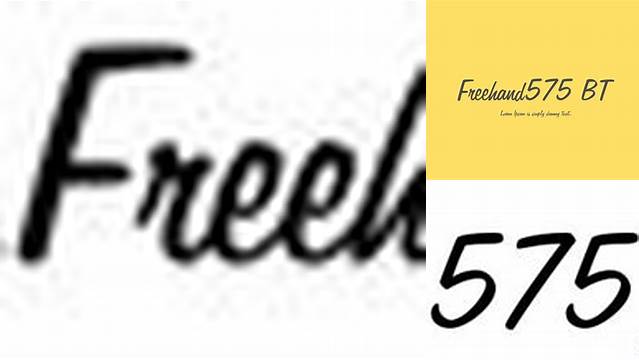
Hey everyone! Are you on the hunt for the Freehand 575 BT font? You've landed in the right spot! This article is your go-to guide for everything related to this classic typeface, including how to snag a free download. We'll dive into its history, its uses, and where you can find it. So, buckle up, and let's get started!
H2: Understanding the Freehand 575 BT Font
Okay, first things first: What exactly is the Freehand 575 BT font? Simply put, it's a distinctive typeface that's been around for quite a while. It's known for its unique handwritten or calligraphic style, making it ideal for a variety of design projects. Imagine the elegance of a well-crafted signature, and you're on the right track. This font isn't just about letters; it's about creating a certain feel – a touch of personality and flair that sets your work apart. Its flowing strokes and slightly irregular letterforms give a sense of authenticity and a human touch, something that’s often missing in more rigid, digitally-perfected fonts. The Freehand 575 BT font is a great choice if you're looking to evoke a sense of creativity and artistry. It's a great option for headings, titles, and even shorter body text, depending on the overall design aesthetic. This font works well in a range of scenarios, from creating stylish invitations and greeting cards to crafting eye-catching logos and branding materials. Designers often turn to this font when they want to add a touch of personality or a handcrafted feel to their work. Its versatility means it can be adapted for both digital and print projects. The font is also frequently used in artwork to create a more personal feel. It's not just about what the letters say, it's about the way they say it, the unique characteristics of each character that contributes to the font's overall aesthetic impact. Think about how different fonts can change the mood of a design. A bold, sans-serif font might convey strength and modernity, while a delicate script font might suggest elegance and romance. Freehand 575 BT falls into the latter category, offering a sense of artistry and a unique appeal that's hard to replicate with other fonts. The history behind the font might also influence your choice. Knowing that it's been around for a while and still being widely used suggests its durability and continued relevance in design. Knowing about the origins and the designers behind the font can give you a deeper appreciation of its intricacies.
H2: The Best Uses for Freehand 575 BT Font
Alright, let's talk about where you can actually use the Freehand 575 BT font to make your projects pop. The beauty of this font lies in its versatility. Think of it as a secret weapon in your design arsenal. It's fantastic for adding a personal touch to invitations, wedding stationery, and greeting cards. Want to make your invitations seem extra special? This font is your go-to. Also, if you're working on branding, it's a great choice for logos, especially if you want to convey a sense of creativity, art, or a handcrafted feel. Logos designed with the Freehand 575 BT font can stand out from more generic, impersonal designs. Consider it for social media graphics, where you want to create headlines that grab attention. Its distinctive look makes your posts more memorable in a sea of content. Blog headers? Yep, it works great there too. Use it to create a visual identity that's consistent across your website, social media, and printed materials. This level of consistency reinforces your brand's image and makes it easier for your audience to recognize and remember you. Another brilliant use case is in designing merchandise, such as t-shirts, mugs, or posters. It's perfect for adding a unique flair to quotes or short phrases. When deciding where to use the Freehand 575 BT font, the key is to consider the overall message you want to convey. Does the font's style align with your brand's values? Does it help you communicate your message in a way that resonates with your target audience? By using the font thoughtfully, you can enhance your designs and make them more appealing. If you are planning on using the font for longer blocks of text, consider it in smaller sizes or in conjunction with other, more readable fonts. The unique style of Freehand 575 BT is most effective when used sparingly, like a dash of seasoning in a dish. Keep in mind that legibility is key, especially when it comes to print materials or digital platforms. Ultimately, the best way to determine whether this font is right for your project is to experiment with it. Try different sizes, layouts, and combinations to see how it looks and feels.
H3: Freehand 575 BT Font in Invitations and Stationery
When it comes to invitations and stationery, the Freehand 575 BT font is like the elegant guest that always impresses. Imagine crafting wedding invitations with this font; it immediately exudes a sense of sophistication and romance. The handwritten-style letters add a personal touch that generic fonts simply can't replicate. Guests immediately feel as if they are receiving something created especially for them. Also, consider using this font for birthday party invitations, baby showers, or any other special event. The flowing curves and artistic flair of the font enhance the celebratory mood. You can use it for the main text, the names of the hosts, or even for the RSVP information. However, balance is key. Pair the Freehand 575 BT font with a more readable font for the body of your text, especially for the details like the date, time, and location. This combination offers the best of both worlds: a stylish headline and clear readability. The visual hierarchy is crucial. Use a larger size for headlines and smaller sizes for the remaining content. You can also add embellishments to your stationery, like elegant borders or illustrations, to further complement the font's artistic appeal. The overall look and feel of the invitation should align with the event's theme. The Freehand 575 BT font is perfectly suited for creating a vintage vibe or a more modern aesthetic. Consider adding the font to thank you cards, place cards, or even menus. Each piece, when adorned with this elegant font, contributes to the overall experience, making it memorable. It is important to test the font out beforehand and experiment with its different styles. Make sure the font looks great on the paper type and with the color scheme you're planning to use. Ultimately, the goal is to create invitations and stationery that not only look beautiful but also clearly convey important information.
H3: Creating Unique Logos with Freehand 575 BT Font
If you're looking to create a logo that really stands out, the Freehand 575 BT font can be a game-changer. This font is a fantastic choice, particularly if you want to give your brand a handcrafted or artistic feel. Think of it as a way to inject personality into your logo. The font's unique style can instantly make your brand more memorable. Many businesses, especially those in creative fields, turn to this font to create a strong visual identity. Imagine a logo for a small bakery, a boutique clothing store, or an art studio. The font can help create an image that is both unique and professional. When choosing a font for your logo, consider your brand's overall image and the message you want to convey. If your brand is about creativity, originality, and attention to detail, the Freehand 575 BT font can be a perfect fit. However, it is crucial to ensure that the font is legible, even at a small size. Keep in mind that your logo will appear on various platforms. When used in a logo, the font should be clear and concise. In addition to using the font for the main text, experiment with incorporating it into other elements of your logo design. You might use it to create a tagline, a stylized monogram, or as part of the overall design. Also, consider using the font in conjunction with other design elements, such as custom illustrations or a unique color palette. The aim is to create a logo that's instantly recognizable and effectively represents your brand. A well-designed logo is a cornerstone of your branding. Your logo is often the first thing people will see, and it can leave a lasting impression. So, by using the Freehand 575 BT font in your logo, you can enhance your brand's appeal and create a strong and memorable identity.
H3: Freehand 575 BT Font for Social Media Graphics
Want to make your social media posts pop? The Freehand 575 BT font could be your secret weapon. This distinctive typeface is perfect for creating eye-catching headlines and quotes that will instantly grab attention on platforms like Instagram, Facebook, and Pinterest. Its unique, handwritten style helps your content stand out from the crowd. In today's fast-paced social media environment, it's more important than ever to capture your audience's attention quickly. The font's artistic flair is ideal for creating visually appealing graphics. Whether you're sharing inspirational quotes, promoting a new product, or announcing an event, this font adds a touch of elegance and personality that other fonts simply can't match. Consider incorporating the font into your brand's visual identity. This will ensure that your social media posts are consistent with the rest of your marketing materials. This consistency can make your brand more recognizable. Also, think about using the font in a variety of graphics, such as quote posts, promotional images, or even short video introductions. Create engaging content that resonates with your audience. Always ensure your design is legible on small screens. While the font looks stunning, it is crucial to ensure that your message can be understood at a glance. Make the most of contrast. Pair the font with bold colors or eye-catching imagery to ensure that your graphics are both visually appealing and effective. The visual impact of the font will help you establish a strong presence on social media, which will help your audience remember your brand. Using the font wisely will improve the overall look of your social media graphics.
H3: Using Freehand 575 BT Font in Blog Headers and Titles
If you're a blogger, the Freehand 575 BT font is a fantastic tool for creating engaging headers and titles. It can help your blog posts stand out and grab the attention of your readers. Think of it as the perfect way to give your blog a stylish makeover. When creating blog headers and titles, the goal is to capture your audience's attention and entice them to click and read your content. The font's handwritten style adds a personal touch, making your blog feel more welcoming and authentic. Because it's unique, it will attract readers, making them want to read your articles. It is also ideal for creating a unique visual identity for your blog. Consistency across all your blog posts is important. Use the font for your headlines, subheadings, and even pull quotes. This will create a cohesive and professional look. Experiment with different sizes, colors, and layouts to find what works best for your blog. Consider incorporating the font into your blog's logo, social media graphics, and other marketing materials. You can also consider using it for special announcements. But keep in mind, that it should always be legible. The font looks best when it's used for titles and headers. Overall, by using the Freehand 575 BT font, you can transform your blog posts into captivating pieces that engage your readers and make them want to return for more. It can help set the tone and theme of your blog. The font can also convey a sense of creativity and artistry, which is perfect for blogs that cover creative topics.
H3: The Characteristics and Features of Freehand 575 BT
The Freehand 575 BT font comes with unique characteristics that make it so distinctive. Its primary feature is, of course, its handwritten or calligraphic style, which instantly adds a touch of personality and elegance. The flowing strokes and the slightly irregular letterforms give it a human touch. This is a departure from the sterile perfection of some modern fonts. Because of this, the font gives off a sense of authenticity. Each character in the font has its unique shape, giving a handcrafted feel to the text. This feature is perfect for a design that you want to be perceived as personal. Another interesting characteristic is its versatility. Despite its specific style, the font can be used for a wide array of design projects. It is suitable for invitations, logos, social media graphics, and more. The font provides the perfect blend of creativity and functionality. The design of the font allows for easy readability, even at a small size. It's important when choosing a font to ensure your message is clear. Also, the font is available in different weights and styles, giving you more control over your design. This means you can adjust it to suit your needs. Overall, the characteristics and features of the Freehand 575 BT font make it a go-to choice for designers who want to create a unique, handcrafted look. The font can truly make your designs stand out. Its distinct style is perfect for those who want to create a lasting impression.
H3: Differences Between Freehand 575 BT and Similar Fonts
When exploring fonts, you might stumble upon others that share similar styles to the Freehand 575 BT. But what sets this particular font apart? The main difference often lies in the unique balance between its artistic flair and its readability. Many similar fonts lean heavily on either the artistic or the practical side. Freehand 575 BT strikes a balance. The flowing strokes and the slightly irregular forms give it a distinctive handwritten feel, setting it apart from more rigid, machine-made fonts. This sets it apart from other fonts. Also, the level of detail in each character distinguishes it. The curves and the flourishes are designed in a way that makes each letter a work of art. The Freehand 575 BT font is a bit more refined. When considering similar fonts, you'll also notice differences in their versatility. Some fonts are better suited for headlines, while others are ideal for body text. Freehand 575 BT can be used in a wide range of applications, making it more versatile. It is also important to consider the availability and license of the font. Some fonts are available for free, while others require a purchase. The Freehand 575 BT font might be easier to obtain than some other fonts. Ultimately, when choosing between different fonts, consider your specific design needs, your brand's identity, and the message you want to communicate. Consider the context in which the font will be used, the target audience, and your personal design preferences. Experimenting with various fonts is the best way to figure out which one works best for you.